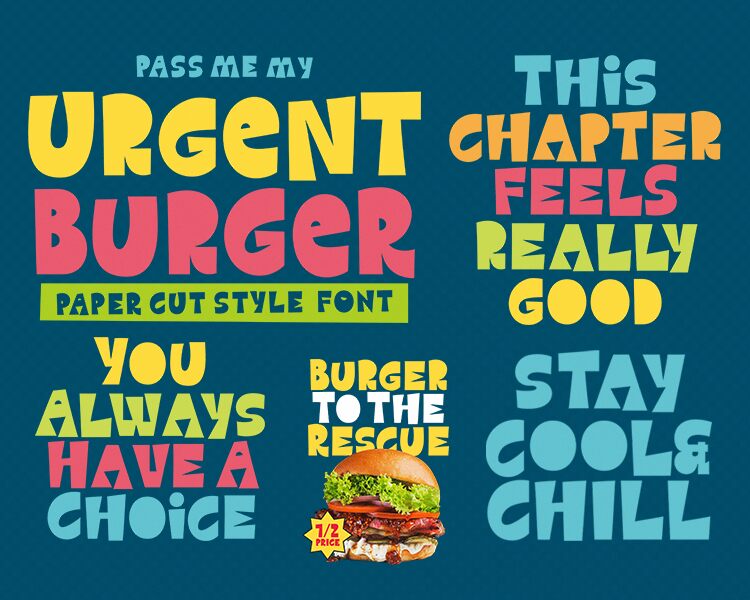
Urgent Burger font is a cartoon display typeface by Four Lines with a fun and energetic appearance. A remarkable playful tone can be achieved through this onomatopoeia-inspired font which was designed as the visual representation of its name being pronounced. Redefine visual hierarchy in any written text with its bold letters in standard, outline, or 3D style.
The free bold font is perfect for food packaging and branding, catchy YouTube video thumbnails, online and offline posters, Instagram posts and profile pictures, animated media banners, cover designs (books/magazines), logos and wordmarks.